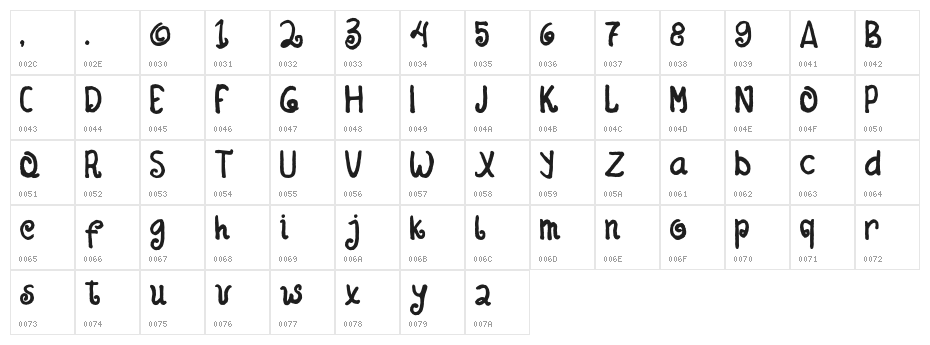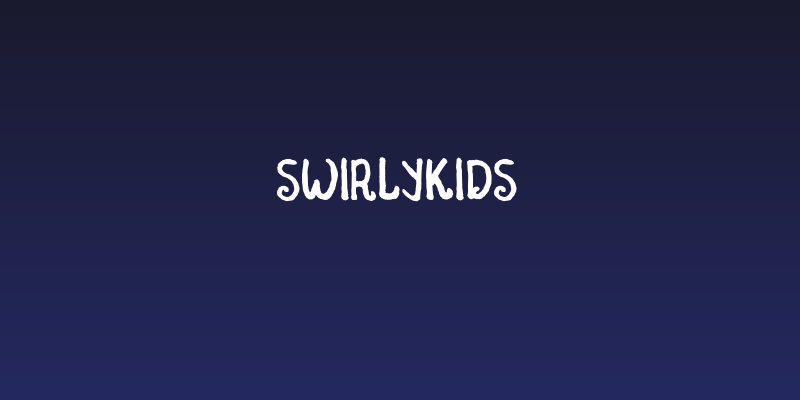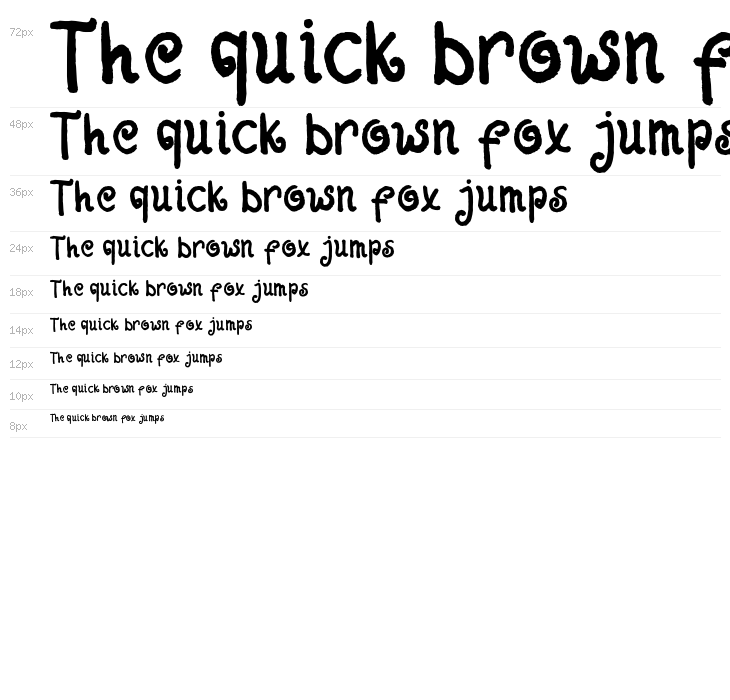
swirlykids Font
swirlykids Description
This font features a playful and whimsical design with a hand-drawn appearance. The letters are characterized by their bold, rounded forms and irregular strokes, giving them a lively and energetic feel. The uppercase and lowercase letters maintain a consistent style, with some letters incorporating unique swirls and loops that add to the font's charm. The numbers and special characters follow the same playful aesthetic, making the font suitable for creative and informal projects. Its distinct style makes it stand out, perfect for capturing attention in various design contexts.
| Proposed Projects | Ideal for children's books, playful branding, greeting cards, and creative posters. |